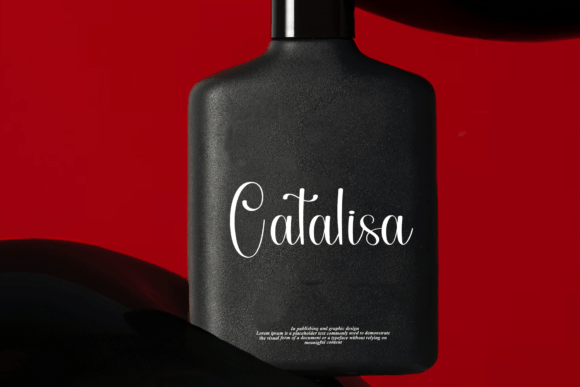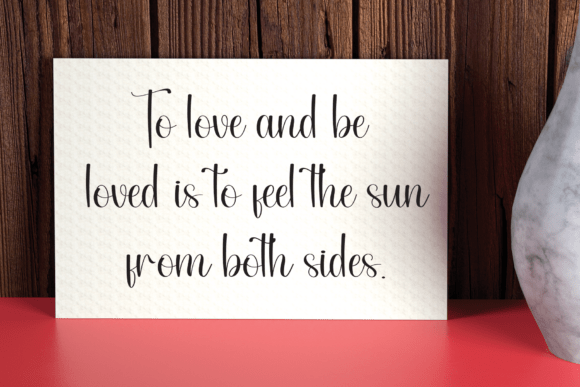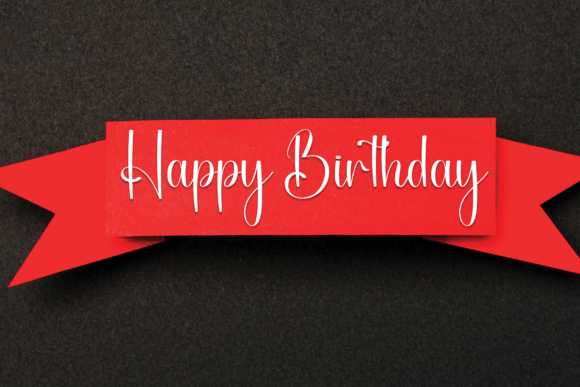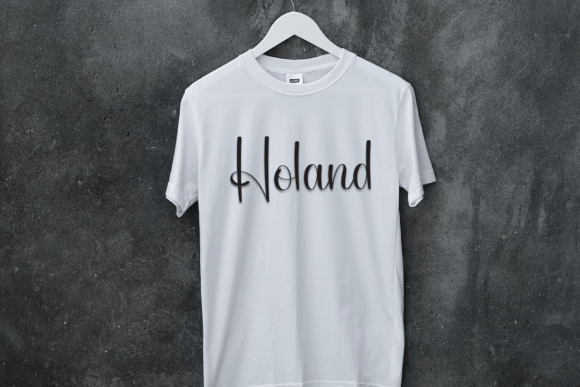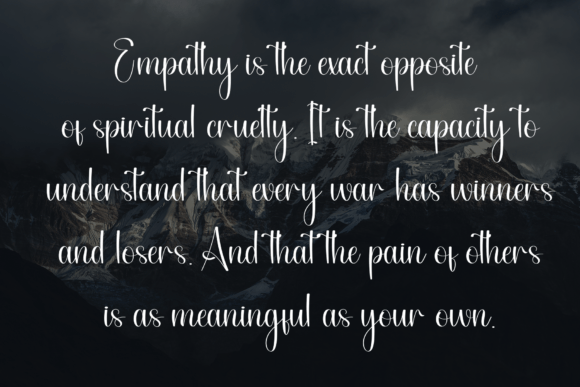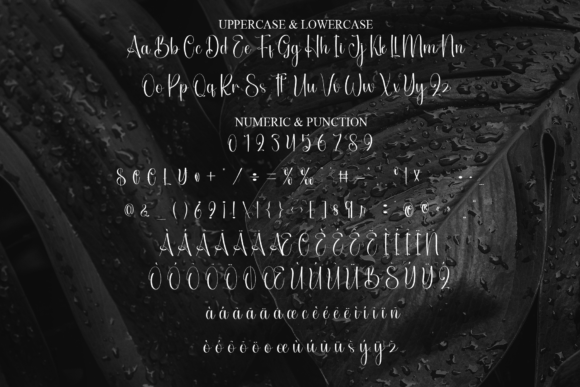
The Elusive Perfect Font: My Encounter with Black Sample
I’ll never forget the time I was working on a wedding invitation project for a dear friend. The design was coming along beautifully, but I was stuck on finding the perfect font. The client wanted something elegant, modern, and sophisticated. I scoured the internet, tried out countless fonts, but nothing seemed quite right. That was until I stumbled upon Black Sample, a chic and modern script font that instantly caught my eye. In this article, I’ll share my experience with Black Sample, its features, and how to make the most of this stunning font.
First Impressions: A Review of Black Sample
• ✅ Elegant flourishes and refined strokes that give every word a luxurious feel
• ✅ Perfect blend of timeless sophistication and contemporary flair
• ✅ Highly versatile, suitable for branding, wedding invites, fashion labels, or social media graphics
• ✅ Easy to read, even in smaller sizes
While Black Sample is an exceptional font, it’s not without its quirks. Here are a few things to keep in mind:
• 🤔 May require some adjustments to kerning and tracking for optimal results
• ⚠️ Not ideal for body text or lengthy paragraphs, as it’s best suited for headlines and titles
The Story Behind Black Sample
Black Sample was designed by a team of typographers who aimed to create a font that exudes elegance and sophistication. Inspired by classic calligraphy and modern digital design, Black Sample is the result of meticulous craftsmanship and attention to detail. The design team wanted to create a font that would be both timeless and contemporary, suitable for a wide range of creative projects.
Q: Is Black Sample suitable for body text?
A: While Black Sample is an exceptional font, it’s best suited for headlines and titles. For body text, consider using a serif or sans-serif font for optimal readability.